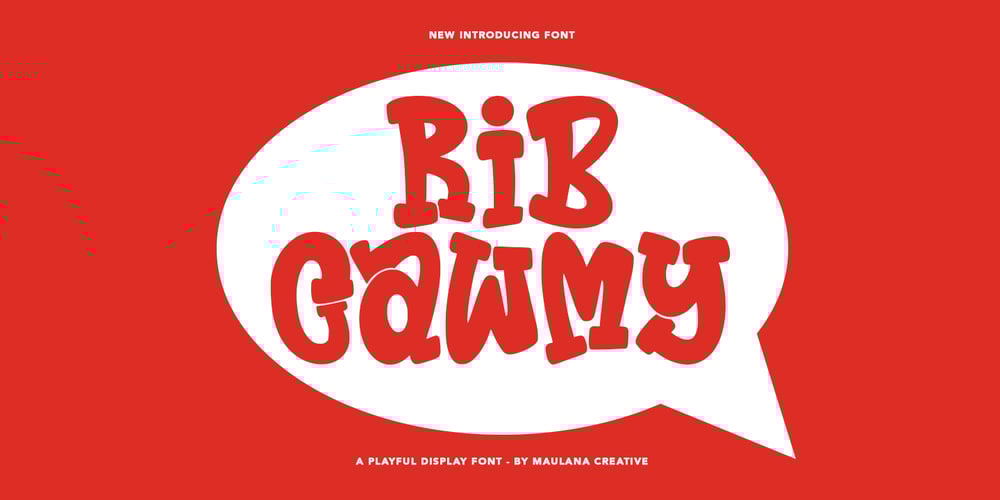
MC Rib Cawmy
MC Rib Cawmy font
MC Rib Cawmy Font Family was designed by Gilang Maulana and published by Maulana Creative. MC Rib Cawmy contains 1 styles and family package options. Rib Cawmy playful display font. Bold stroke, fun character with a bit of ligatures and alternates. To give you an extra creative work. Rib Cawmy playful display font support multilingual more than 100+ language. This font is good for logo design, Social media, Movie Titles, Books Titles, a short text even a long text letter and good for your secondary text font with script or serif. Make a stunning work with Rib Cawmy playful display font.Cheers,Maulana Creative